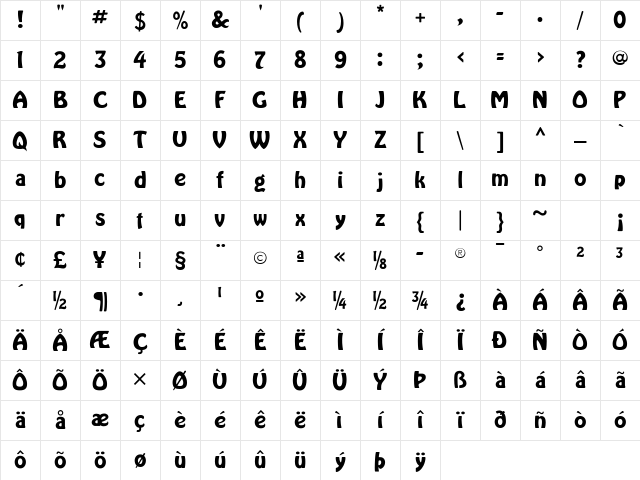
HarlequinFLF Regular
Complete HarlequinFLF Regular glyph index. Displaying only characters natively supported by HarlequinFLF Regular font.
Design Context for HarlequinFLF
HarlequinFLF is a composed and adaptable typeface that performs quietly and consistently across a wide range of design contexts.